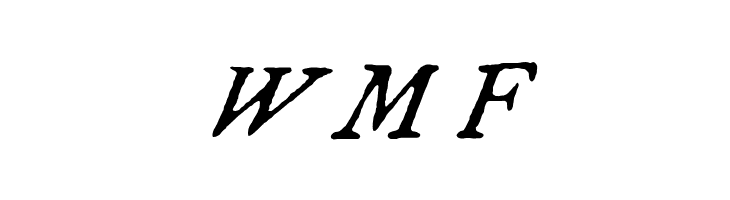
Pirata One Font
A bold, blackletter-inspired font with sharp, angular lines and a dramatic presence.
IM FELL DW Pica Roman Font
A classic serif typeface with a vintage and historical feel, featuring well-defined serifs and elegant characters.
Signika Bold Font
A bold, modern sans-serif font with rounded edges for excellent readability.
Gruenewald VA Font
A cursive, handwritten-style font with smooth, connected letters and a natural flow.
Impregnable Personal Use Only Font
An elegant script font with flowing, cursive characters and decorative flourishes.
IM FELL DW Pica Italic Font
A classic, italicized font with elegant, flowing characters and historical charm.
Presario Text Font
A modern, rounded sans-serif font with a clean, geometric style.
Signika Font
A modern, rounded sans-serif font with excellent readability and balanced proportions.
Fashion Fetish Font
Signika SemiBold Font
A clean, modern sans-serif font with a semi-bold weight and rounded edges.
BPdots-Light Font
A modern, dotted font with a playful and minimalist design.
Fashion Fetish Font
A modern, geometric sans-serif font with a clean and balanced design.
Signika Light Font
A modern, light sans-serif font with a clean and friendly appearance.
Harbell Personal Use Only Font
A bold, elegant script font with flowing, cursive letterforms and high contrast.
FrostingforBreakfast Font
A whimsical and elegant script font with flowing, looping strokes.
WOX-Striped Triple Demo Font
A triple-striped, geometric font with a bold and modern style.
BroshK Font
A bold, geometric font with a modern, industrial style and stencil-like appearance.
BPdots Font
A modern, dotted font with a playful and digital aesthetic.
Lemondrop Font
A bold, playful font with geometric shapes and smooth curves.
PalameciaTitling-Regular Font